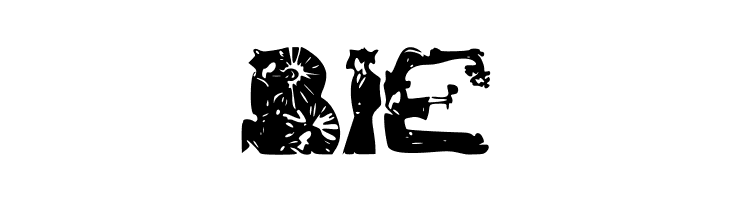
A sophisticated font with a blend of classic and modern elements, featuring elegant curves and playful details.
( Meaghan Wong - 4am.firewish.net )
A playful, casual handwritten font with smooth, rounded strokes.
( Meaghan Wong - 4am.firewish.net )
A playful, handwritten font with a casual and informal style.
( Meaghan Wong - 4am.firewish.net )
A casual, handwritten font with fluid strokes and a lively feel.
A bold, decorative font with a distressed, textured style.
( Fonts by www.omniglot.com )
Abstract, geometric, and cryptic decorative font.
A playful, handwritten font with tall, narrow letters and a casual style.
( recklessweeknights.tumblr.com )
A playful, hand-drawn font with whimsical, irregular strokes.
( AARRGGHH! )
A bold, decorative font with a unique striped pattern and modern geometric style.
( Rasdesign - Rodrigo Araya Salas - www.behance.net/rasdesign )
A bold, playful font with rounded edges and a hand-drawn feel.
( www.jawgatefilms.com )
A bold, modern sans-serif font with geometric lines and uniform width.
( Fonts by www.stereo-type.net )
A classic serif font with modern elements and medium contrast.
( Kat and Taylor! )
A playful, handwritten font with tall, narrow letters and a whimsical style.
An edgy, angular font with a hand-drawn, graffiti-inspired style.
( Fonts by Kreative Korporation - www.kreativekorp.com )
A pixelated, retro-style font with a blocky, digital appearance.
( Fonts by Kreative Korporation - www.kreativekorp.com )
A pixelated, retro-style font with a blocky, digital appearance.
( Fonts by Kreative Korporation - www.kreativekorp.com )
A pixelated, retro-style font with a blocky, digital appearance.
( Fonts by Kreative Korporation - www.kreativekorp.com )
A pixelated, retro-style font with a digital, blocky appearance.
( Fonts by Kreative Korporation - www.kreativekorp.com )
A pixelated, retro-style font with a digital, blocky appearance.
( Fonts by Kreative Korporation - www.kreativekorp.com )
A pixelated, retro-style font inspired by early digital typography.
( Fonts by Kreative Korporation - www.kreativekorp.com )
A pixelated, monospaced font with a retro digital style.
An ornate, decorative font with intricate details and bold outlines.
A playful and casual script font with flowing, connected letters.
A playful and elegant serif font with thin strokes and subtle curves.
A playful, handwritten-style font with a bouncy baseline and thin strokes.
( Fonts by Kreative Korporation - www.kreativekorp.com )
A clean, modern sans-serif font with a geometric influence.